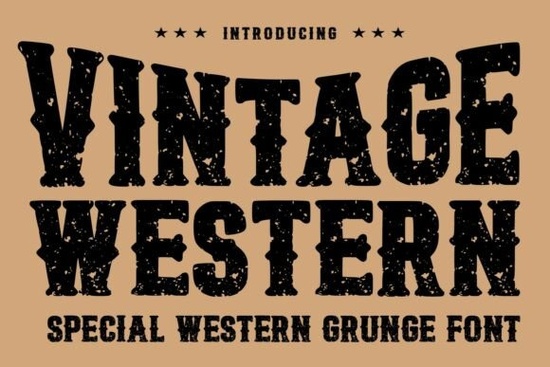
If you're working on a western-themed project, a rodeo poster, or anything that needs an authentic old-west feel, choosing the right typeface makes all the difference. Vintage Western Special Grunge Display Font is designed to capture that rugged, saloon-sign look with distressed edges and bold slab-style lettering. It gives your text a rough, worn texture that feels like it's been printed on aged wood or a dusty storefront sign.
What makes this font different from other western typefaces?
Many western fonts rely on decorative serifs or script styles, but this one is built around strong, blocky letterforms with a genuine grunge texture. The slab-style design adds weight and presence, making it ideal for headlines, logos, and packaging where you need the text to stand out at a distance. The distressed finish is applied directly to each character, so you get that worn, vintage look instantly without having to add any extra filters or effects in your design software.
It works especially well for t-shirt prints, branding, labels, and retro graphic projects. If you're designing for a cowboy-themed event, a craft distillery, or a rustic product line, this font gives your work an authentic, hand-painted feel that a clean, modern typeface simply can't match.
How do you use a grunge display font effectively?
Grunge fonts like this one are best used for headlines, short phrases, or single words. Because of the rough texture and bold weight, using it for long paragraphs can make the text difficult to read. Instead, pair it with a simpler, cleaner font for body copy. For example, use Vintage Western for your main title or product name, then a standard sans-serif or serif font for product descriptions or additional details.
Some practical ways to use this font include:
- Poster and flyer headlines for rodeos, country fairs, or western-themed events
- Product labels for craft beer, barbecue sauce, or leather goods
- Logo design for brands that want a rugged, handcrafted look
- T-shirt graphics with cowboy sayings or vintage-inspired art
- Social media graphics for western or rustic-themed content
Can this font work for print-on-demand products?
Absolutely. Print-on-demand sellers will find this typeface valuable for creating unique designs that stand out in a crowded marketplace. The bold letterforms and grunge texture translate well to apparel, mugs, tote bags, and wall art. Because the font already includes the distressed look, your designs look like they've been screen-printed with ink on a rough surface, which is a popular aesthetic for vintage-inspired merchandise.
If you're building a western-themed brand or a product line with a rustic vibe, combining this font with other vintage-style typefaces can give you a cohesive look. For instance, Thick Honey Duo Font offers a softer, more decorative contrast that works well for accent text or secondary headers. Similarly, Varsity Signature Font brings a classic sports-inspired feel that can complement the western aesthetic in unexpected ways.
What kinds of projects suit this style best?
This font is designed for projects that need a strong, masculine, or nostalgic feel. Beyond western themes, it can work for:
- Outdoor and adventure branding like camping gear or hiking trails
- Music festival posters for country, folk, or americana acts
- Restaurant menus for steakhouses or barbecue joints
- Packaging for artisanal products like small-batch whiskey or handmade soap
For a more playful or retro look, you might pair it with Groovy Cute Font for quirky accent pieces, or Sweetie Honey Font for a softer contrast in packaging or branding. If you're working on a project that needs a bold, chunky feel, Lucky Chunks Font can also serve as a strong companion weight.
Is this font easy to use for someone new to design?
Yes. The font comes as a standard OTF or TTF file, so it installs just like any other typeface on your computer. Once installed, it appears in your font menu in programs like Adobe Photoshop, Illustrator, Canva, or Procreate. Simply type your text, adjust the size and color, and you're done. The grunge texture is built into the letters, so no additional layering or masking is required.
For the best results, consider these tips:
- Use a solid background color to let the rough edges stand out
- Avoid overcomplicating the design with too many fonts
- Let the texture speak for itself without adding extra grunge effects
- Test the font at different sizes to see how the texture scales
Where should you start with this font?
If you're ready to try it, start with a single project. A poster headline or a product label is a great way to see how the font behaves and whether it fits your style. Experiment with different background textures, like paper or wood, to enhance the vintage effect. Once you see how versatile it is, you'll likely find more uses for it across your design work.
- Pair it with a simple sans-serif or serif font for body text
Once you've finished, you'll have a solid idea of how this typeface can enhance your future projects.